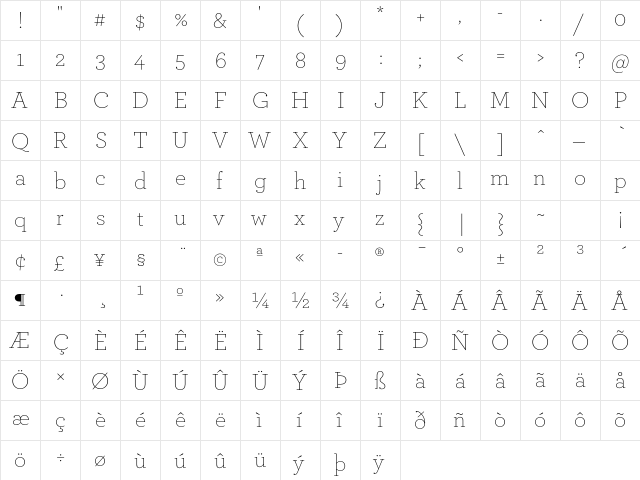
ArcherPro Extra Light
Design Context for ArcherPro Typeface
ArcherPro offers clean, dependable letterforms without strong stylistic allegiance, making it a practical choice for designers who need flexibility. The delicate stroke weight brings airiness and refinement to layouts.
Pro Tip: Pair ArcherPro with a font of contrasting weight or personality to build a more expressive typographic hierarchy.